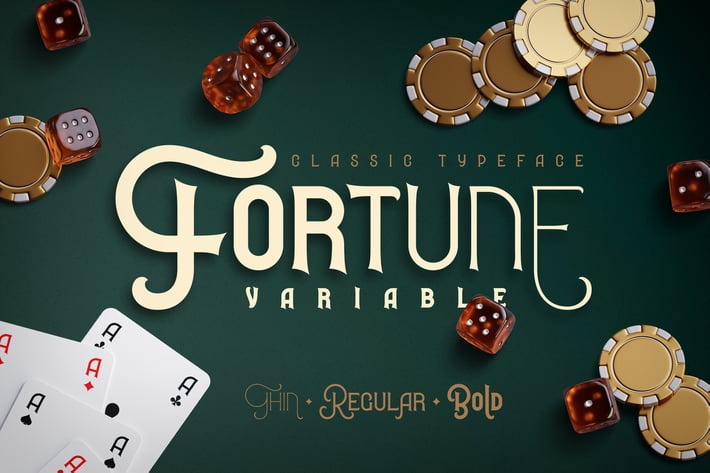
Fortune Variable Font
Gleb_Guralnyk
Introducing Fortune Variable Font set. This typeface has an old school look with classic western shapes. Fortune Variable Font has three predefined weights (Thin, Regular & Bold) and Variable font with flexible weight. All of the small letters has one or two alternates with bottom expanded shape. Fortune Variable Font supports most of the European languages.